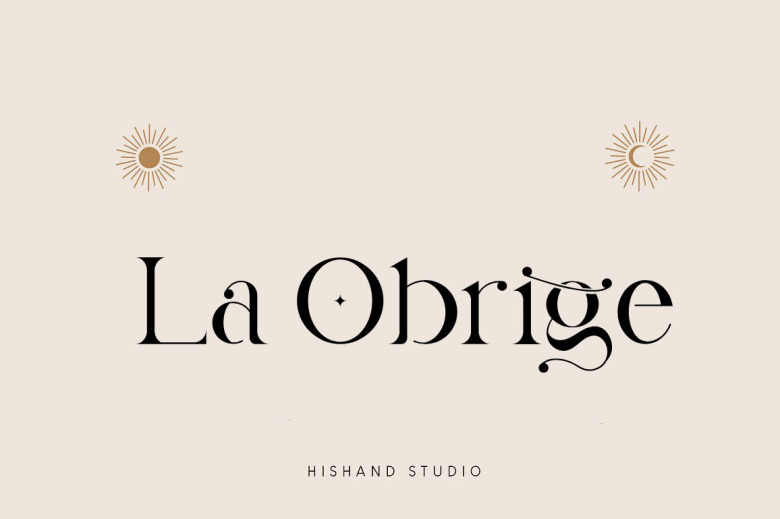
La Obrige Font
La Obrige Serif Font
La Obrige Serif Font is a luxury and elegant font pair that will bring a unique style and a trendy look to your designs. It’s designed and shared by Hishand studio. This typeface is serif font that inspired by the beauty, aesthetic, elegant and Paris. It is really good for water mark, logotype, advertisement, social media posts, product packaging, and more.